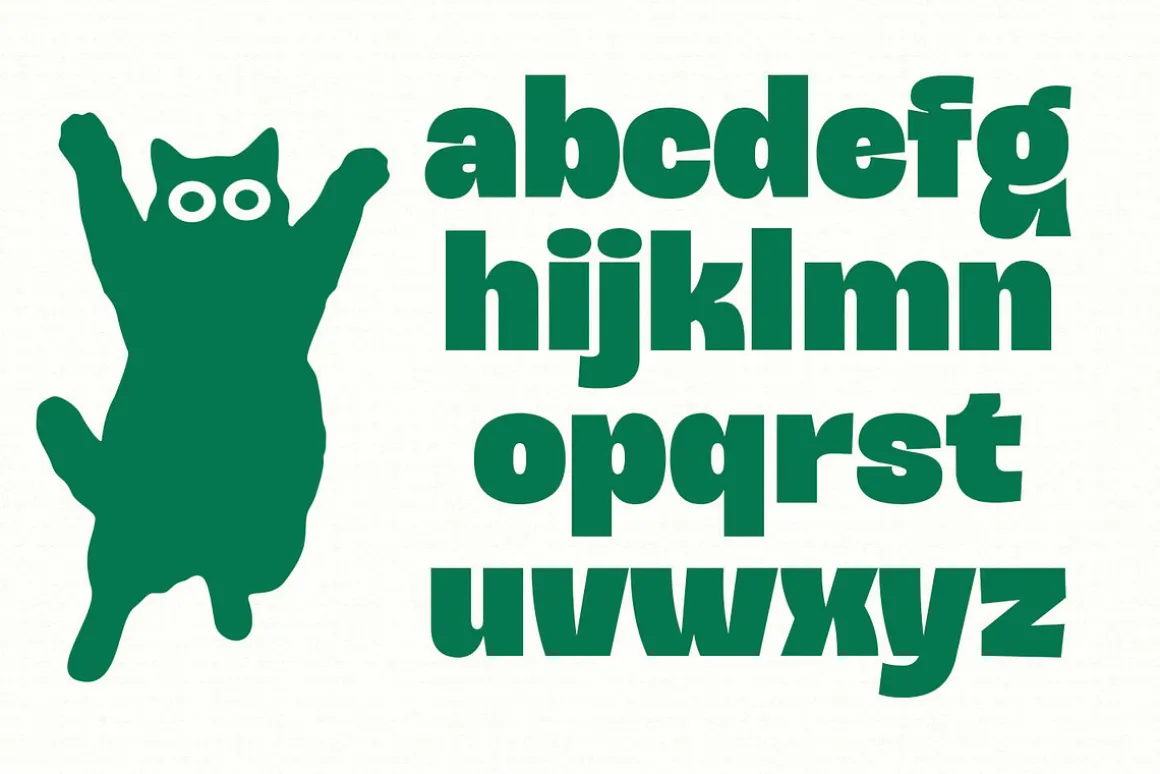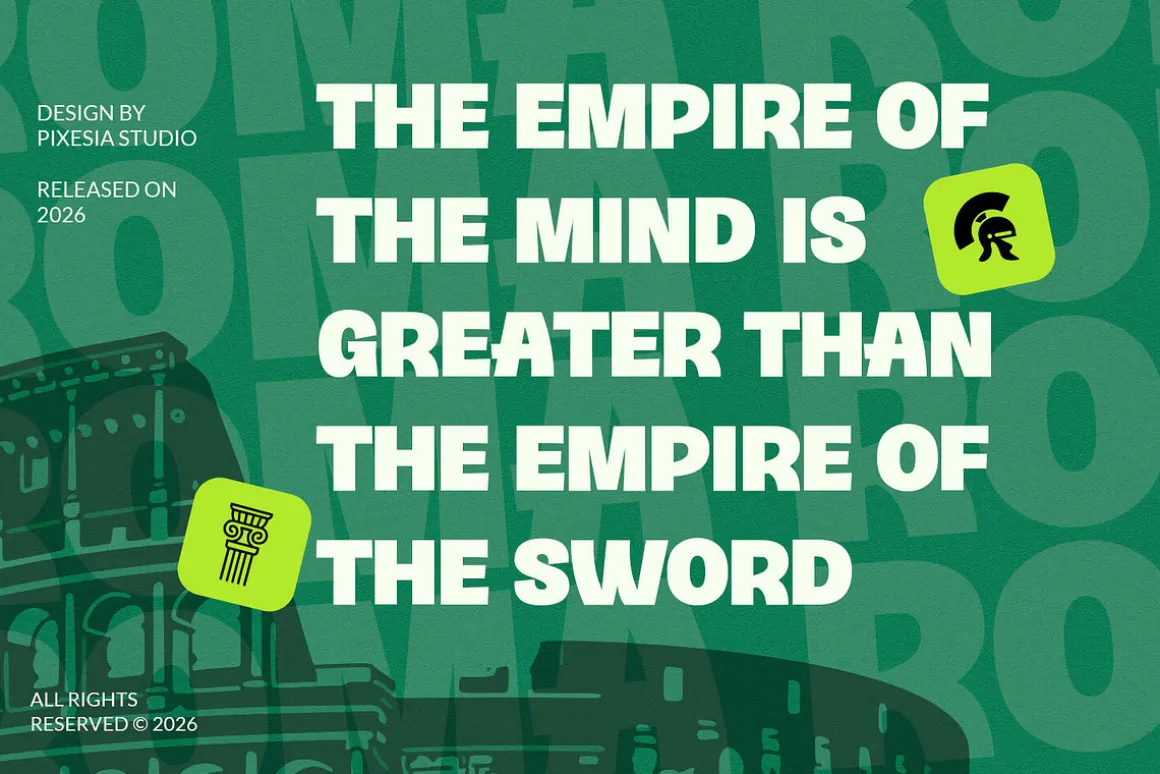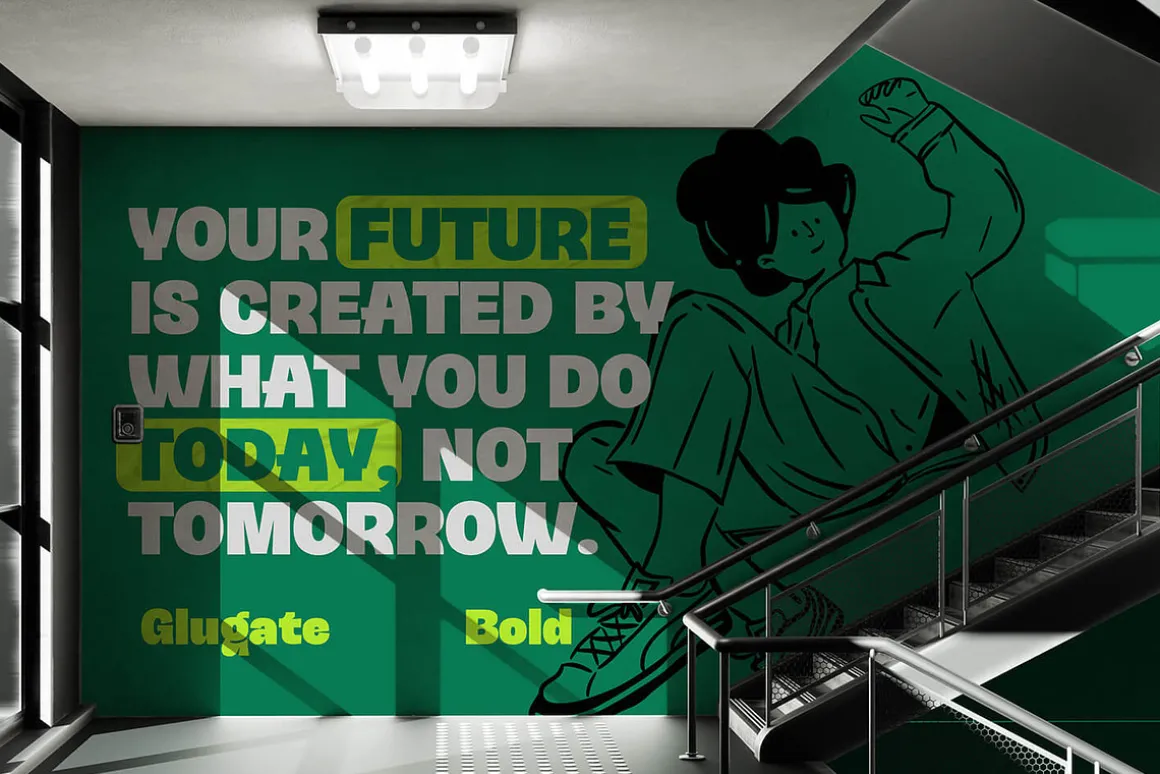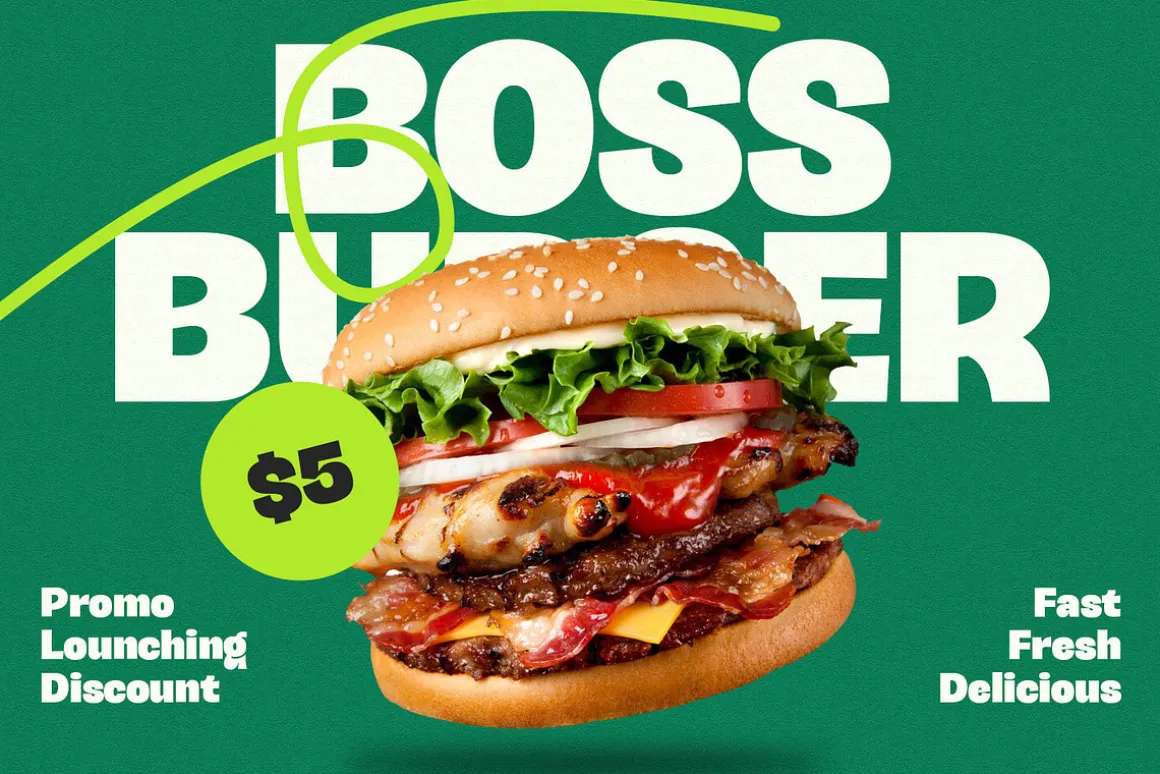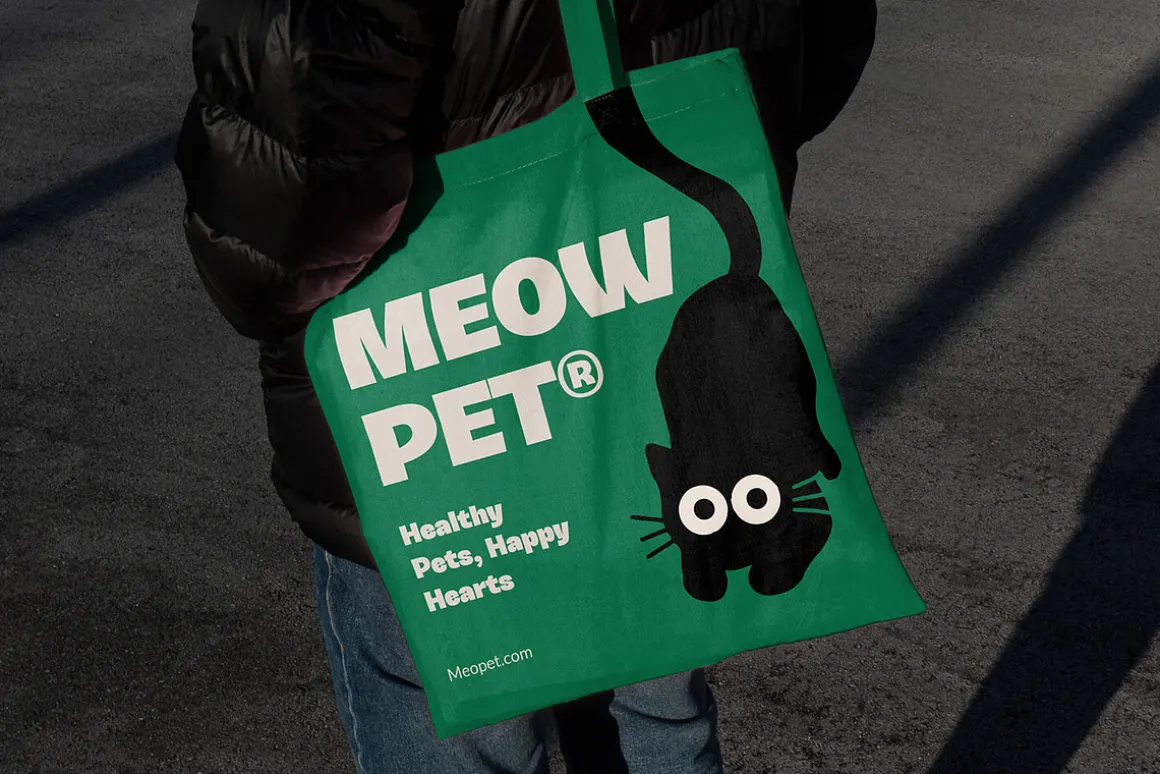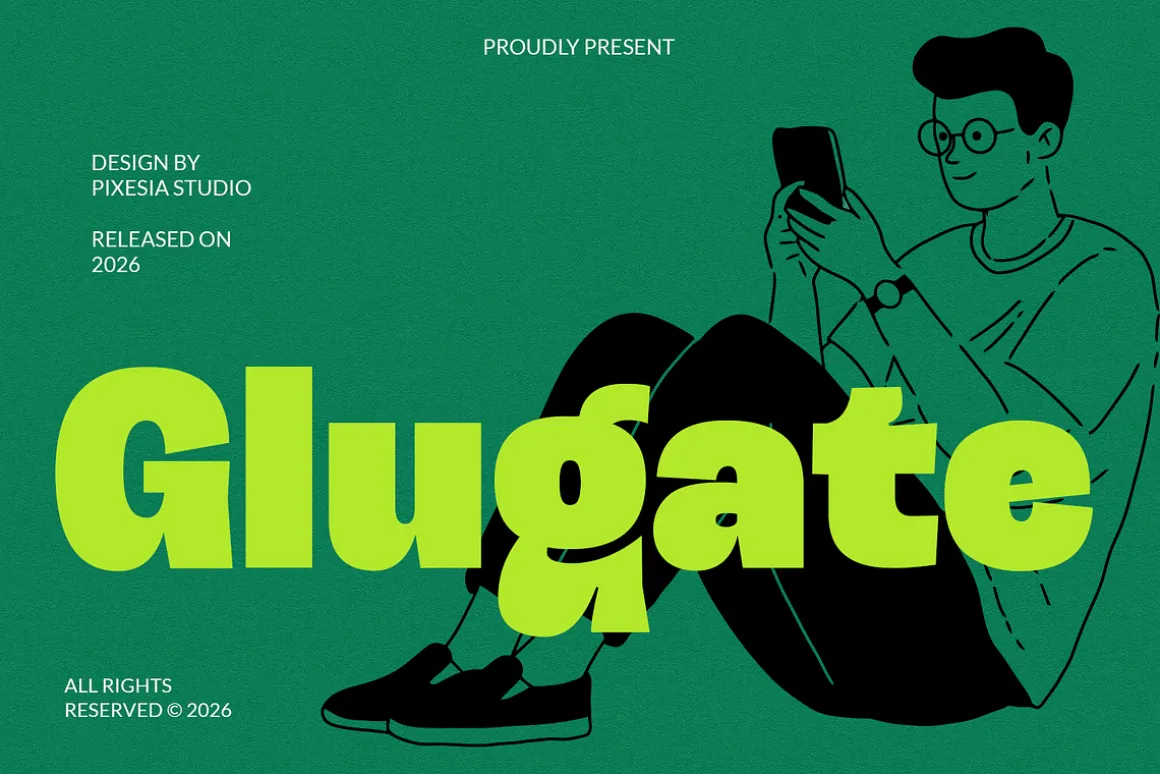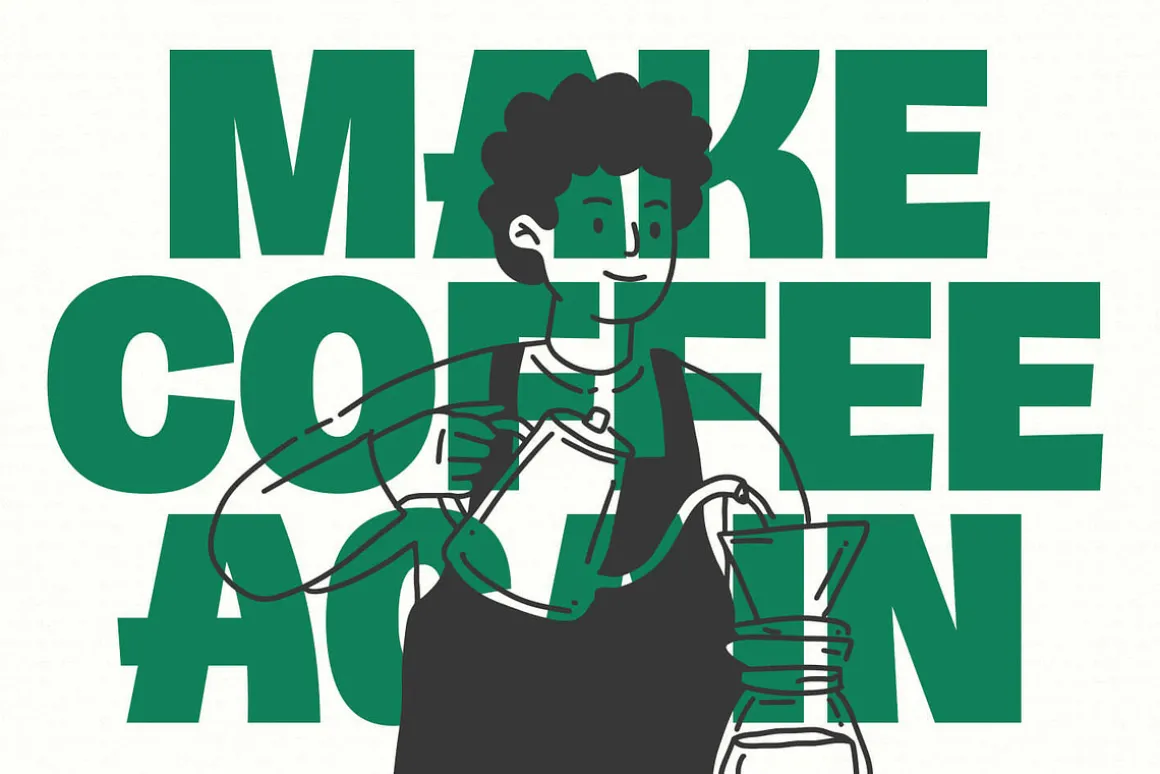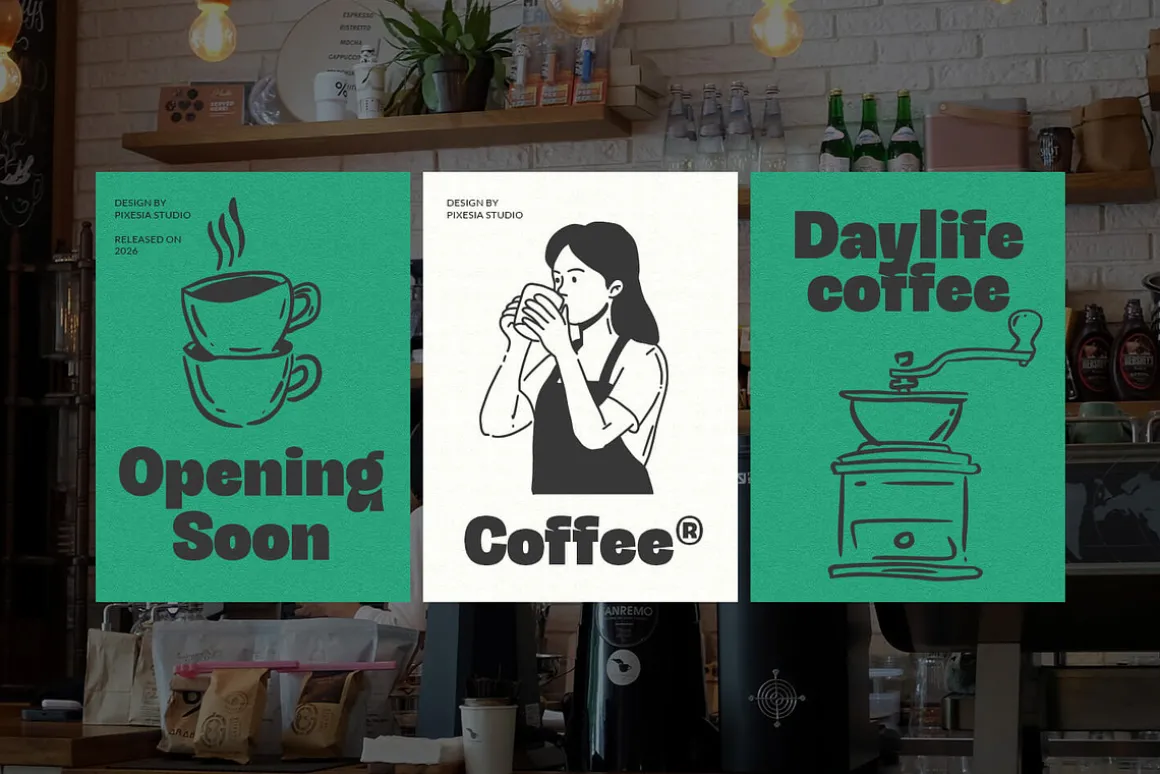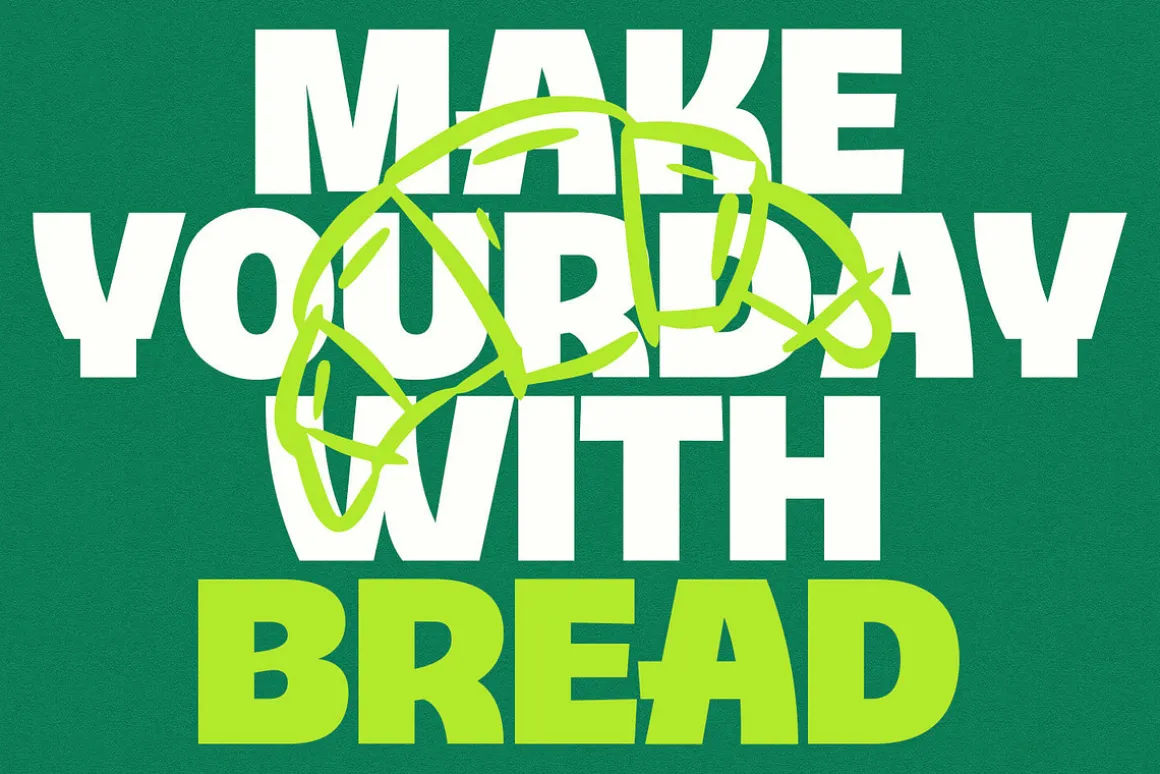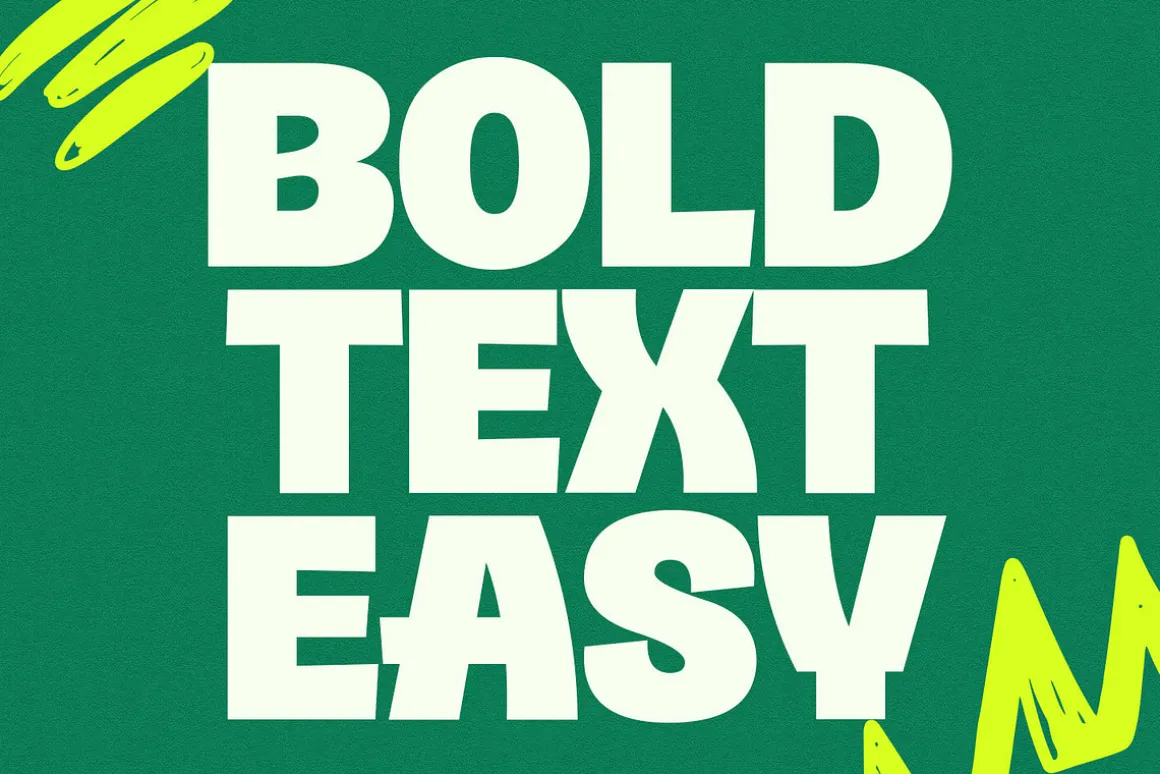
Introducing Glugate – Bold Display Font
Glugate is a bold display font crafted to deliver a strong, confident, and modern visual impact. Featuring smooth curves, thick strokes, and a friendly yet assertive personality, Glugate strikes the perfect balance between playful charm and powerful presence. Every letter feels solid, clean, and highly eye-catching.
Ideal for posters, branding, logos, headlines, packaging, editorial layouts, merchandise advertising and social media graphics, Glugate performs best in designs that demand attention and character. Whether you’re building bold brand identities, striking titles, or contemporary visual campaigns, Glugate adds clarity, confidence, and modern appeal to every composition.
FEATURES:
- Stylistic Alternates
- Ligatures
- Uppercase and Lowercase letters
- Numbering and Punctuations
- Multilingual Support including Afrikaans, Albanian, Basque, Catalan, Danish, Dutch, English, Estonian, Faroese, Filipino, Finnish, French, Galician, German, Icelandic, Indonesian, Irish, Italian, Malay, Norwegian Bokmål, Portuguese, Spanish, Swahili, Swedish, Zulu